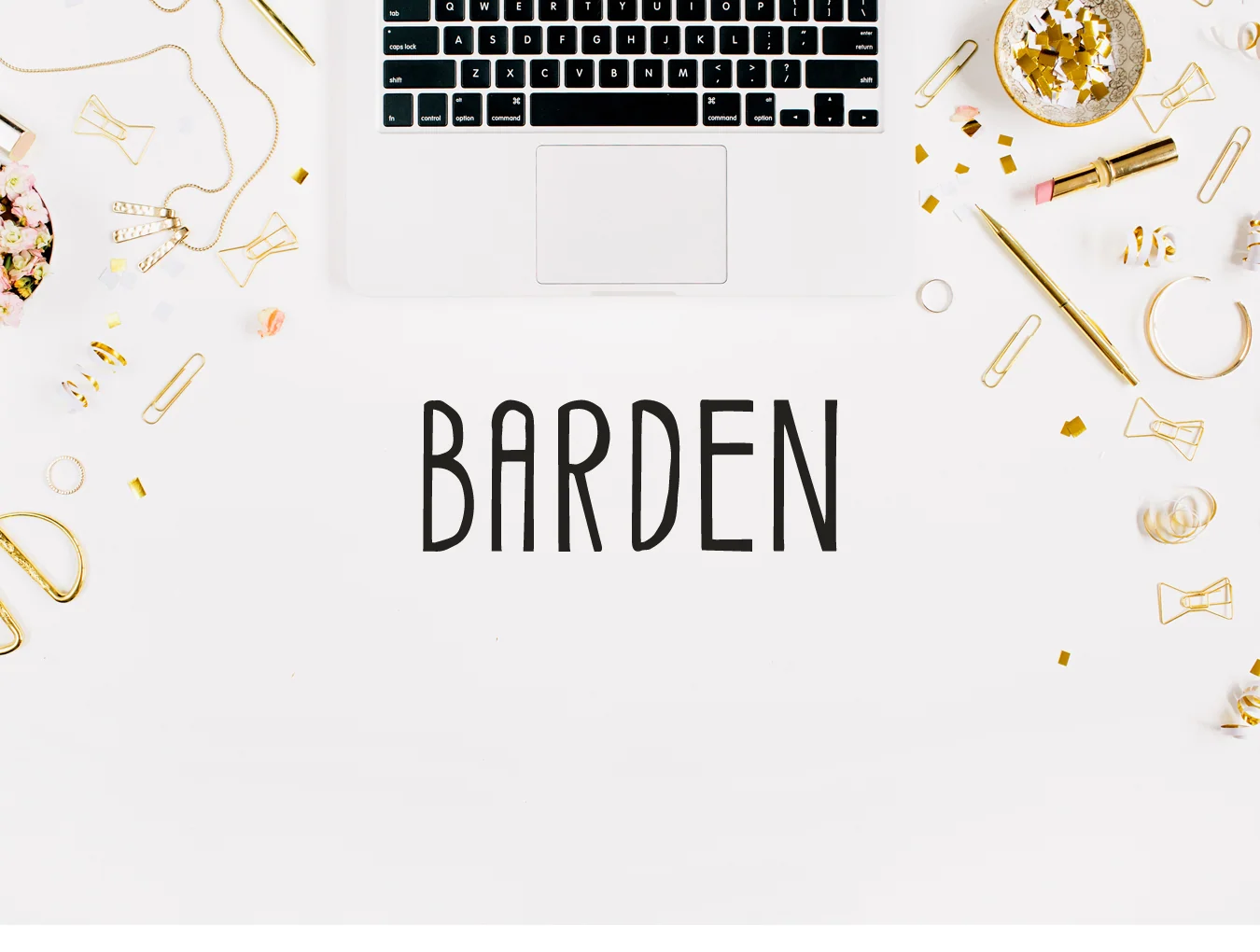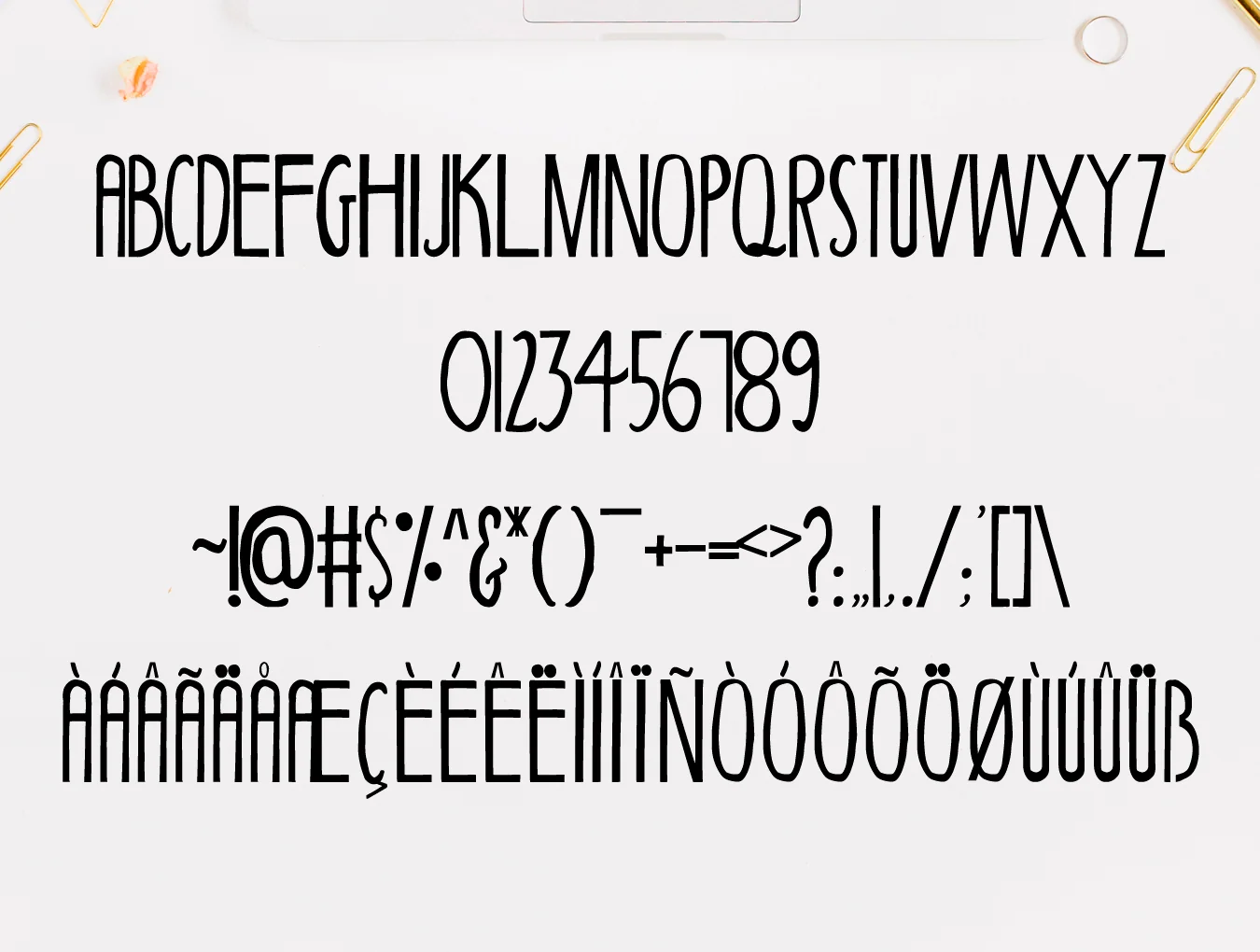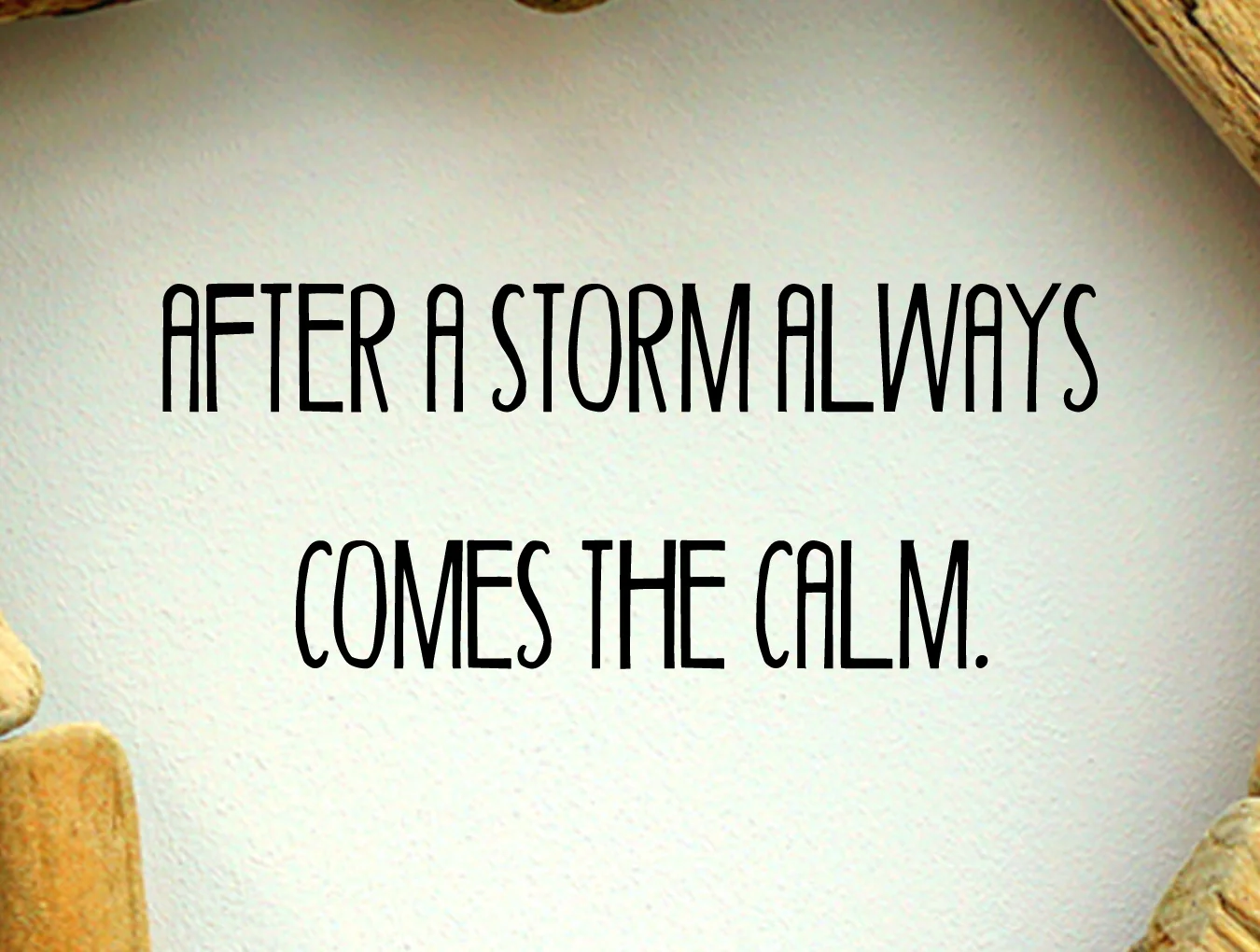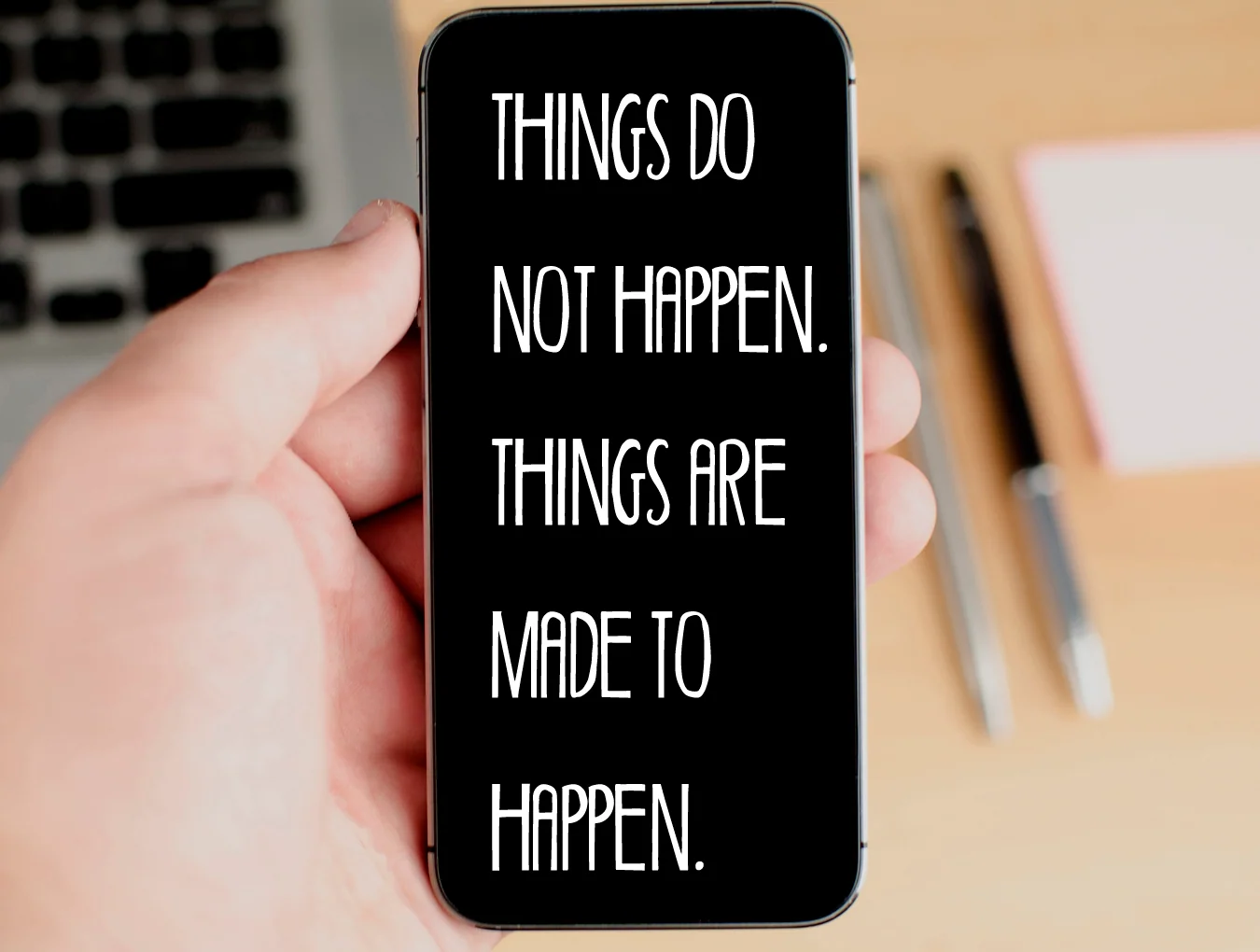
Barden Handmade Font
Barden Handcrafted Font Bundle
Handcrafted display typeface
Barden A Handmade Font is a distinctive handcrafted typeface with rich detail and character. It suits branding, websites, headlines, banners, posters, apparel, logos, magazines, ads, templates, and promos. Use all caps with wide spacing for elegance, or mix upper and lowercase for a timeless style.